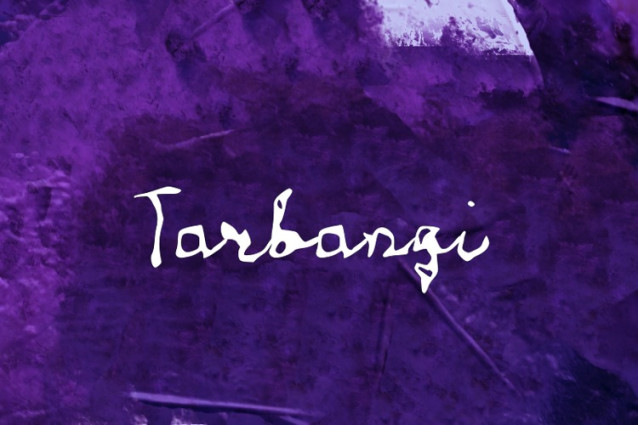
Tarbangi Font
Tarbangi Font, It would be a perfect choice to design posters, affiches, logos, t-shirt and magazine prints, eye-pleasing typographic designs and more.